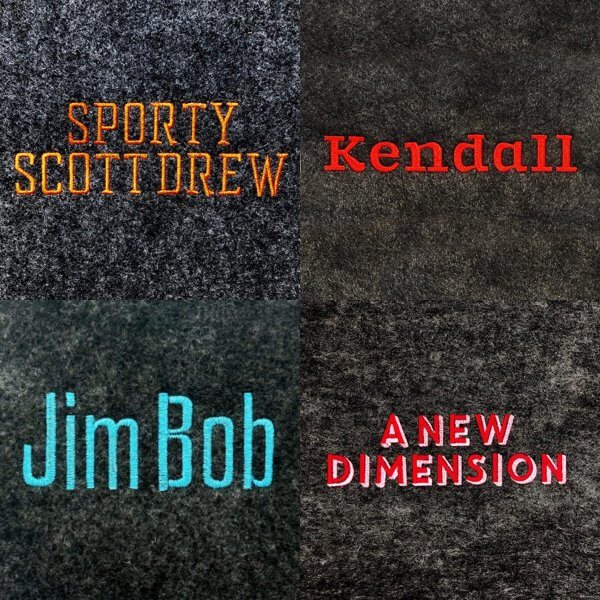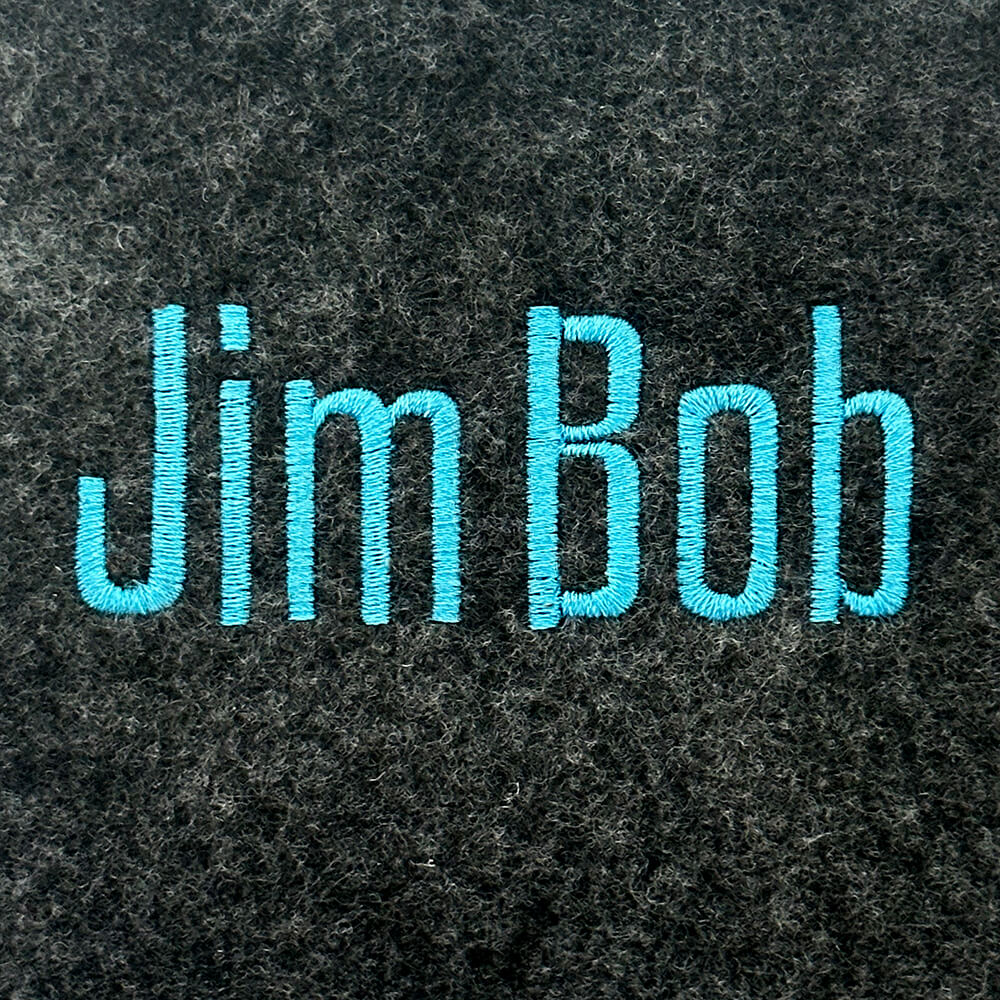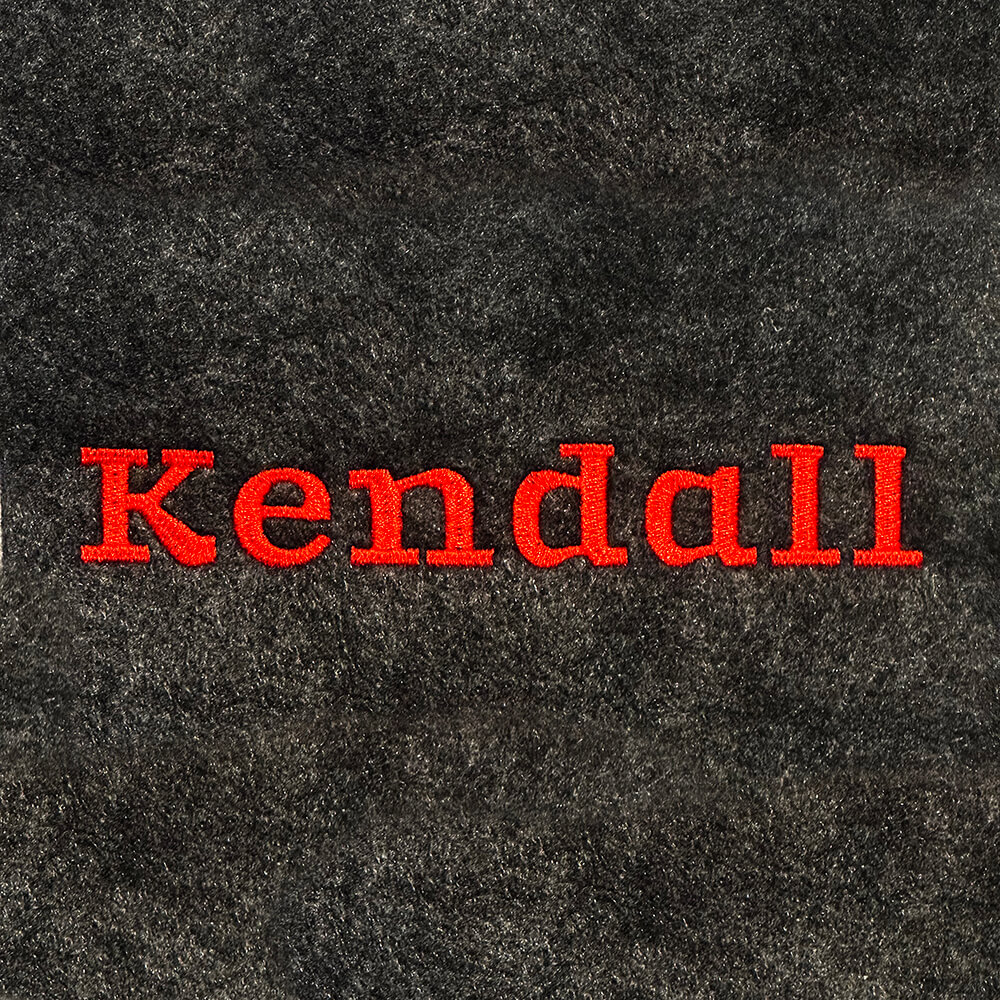
Bold Basics Embroidery Font Four Pack
Every embroiderer needs a few go-to bold fonts on hand, and the Bold Basics Font Four Pack rounds up four of our best: Sporty Scott Drew, Kendall, Jim Bob, and A New Dimension. These are the fonts you’ll reach for again and again — big, clean, and easy to read from across the room, perfect for names, team gear, tumblers, tote bags, and anything that needs to make a statement. All fonts come in BX format as well as letters as individual embroidery designs in several sizes.
This four-pack includes: